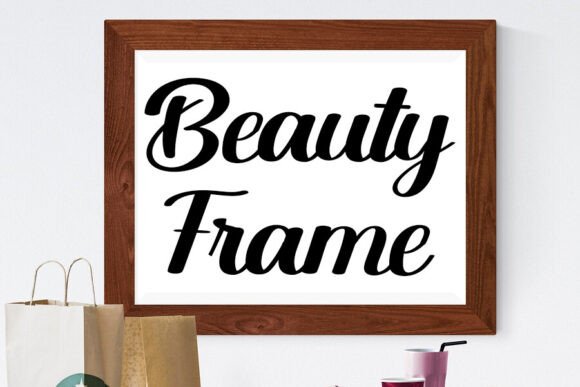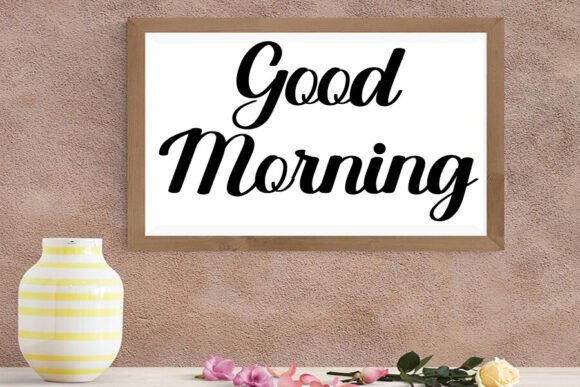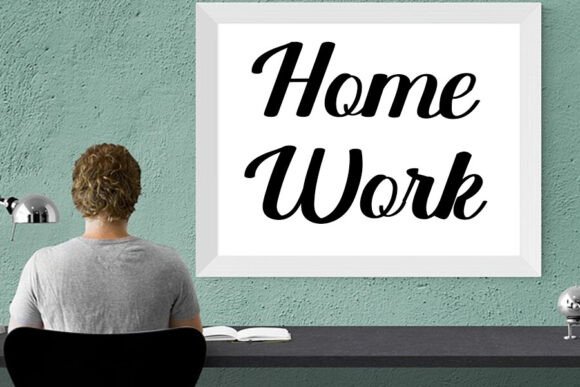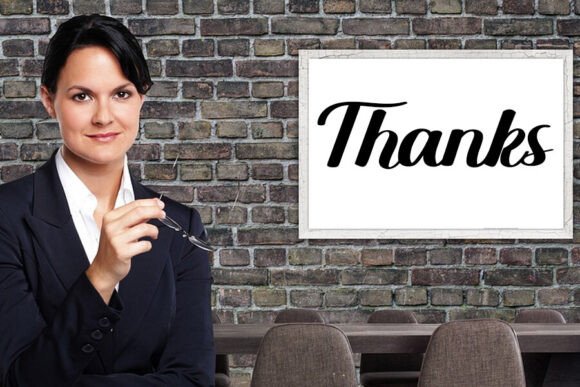
Unlocking Creative Potential: The Revolutionary ‘Background’ Font
In the world of design, the right font can make all the difference. It’s not just about conveying a message; it’s about doing so with style and impact. Introducing the revolutionary ‘Background’ font, an innovative blend of elegance and practical versatility that is set to transform the way you approach design. Whether you’re a professional designer, a small business owner, or a crafty individual, ‘Background’ is the perfect addition to your toolkit.
A Font for Every Design Need
The ‘Background’ font is ideally suited for a myriad of design applications. Its unique design ensures that it can be used in a variety of contexts, from digital to print. Here are just a few examples of how ‘Background’ can elevate your designs:
- YouTube Banners: Stand out on YouTube with a banner that captures attention. ‘Background’ font adds a touch of sophistication and professionalism to your channel’s branding.
- Logo Mockups: Give your logo the perfect complement with ‘Background’. It’s ideal for showcasing your brand’s identity in a visually appealing way.
- Wedding Invitations: Add a touch of elegance to your wedding invitations. ‘Background’ font brings a level of refinement and class that will make your wedding stationery truly special.
- ID Cards and Flyers: Even everyday items can benefit from a design uplift. ‘Background’ font transforms ID cards and flyers from mundane to eye-catching, making them perfect for businesses, events, or personal use.
Empowering Creativity
The ‘Background’ font is more than just a design element; it’s a tool for empowerment. It allows designers and crafters to infuse creativity into every project, no matter how big or small. With ‘Background’, you’re not just designing; you’re crafting experiences. It’s the secret ingredient that can turn a simple project into something memorable.
Driving Growth and Standing Out
In a competitive market, differentiation is key. The ‘Background’ font offers a unique edge that can set your designs apart. By leveraging the potential of ‘Background’, businesses can drive growth through more effective branding and marketing materials. For designers and crafters, it means being able to offer clients something truly distinctive.
Why Choose ‘Background’?
So, what makes ‘Background’ stand out from the myriad of fonts available? Here are a few reasons why it’s becoming a go-to choice for designers and crafters:
- Unique and Simple: ‘Background’ strikes the perfect balance between simplicity and uniqueness. It’s easy to read and understand, yet it stands out in any design.
- Versatility: Its versatility means it can be used across a wide range of design applications, making it a valuable addition to any design library.
- Elegance: ‘Background’ brings an air of elegance to any project. Whether you’re aiming for a professional look or something more creative, it fits the bill.
The ‘Background’ font is a game-changer for anyone involved in design. Its blend of elegance, versatility, and uniqueness makes it an indispensable tool for creating captivating visuals. Whether you’re looking to elevate your business’s branding, create stunning wedding invitations, or simply add some flair to everyday items, ‘Background’ is the perfect choice. Embrace ‘Background’ as your go-to font and discover a world of creative possibilities.
Transform your ideas into captivating visuals with ‘Background’. It’s not just a font; it’s a key to unlocking your creative potential. Join the ranks of designers and crafters who are already making the most of ‘Background’ and experience the difference it can make in your work.